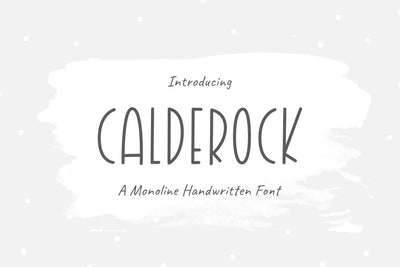
Calderock | Monoline - Handwritten Font
Introducing
Calderock is a monoline style, tall and skinny letters which makes it easy to read. This font looks awesome for quotes, branding, T-shirt, website, blogs, children's designs, svg designs, logos and more